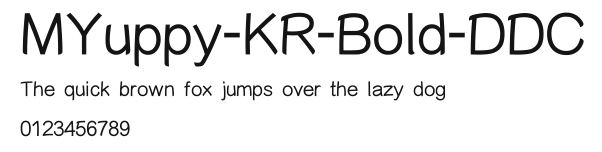
MYuppy-KR-Bold-DDC Preview
About MYuppy-KR-Bold-DDC.ttf
MYuppy-KR-Bold-DDC.ttf is a modern, elegant sans-serif font designed for ultimate readability and visual harmony. Perfect for branding, headlines, web design, and print materials.